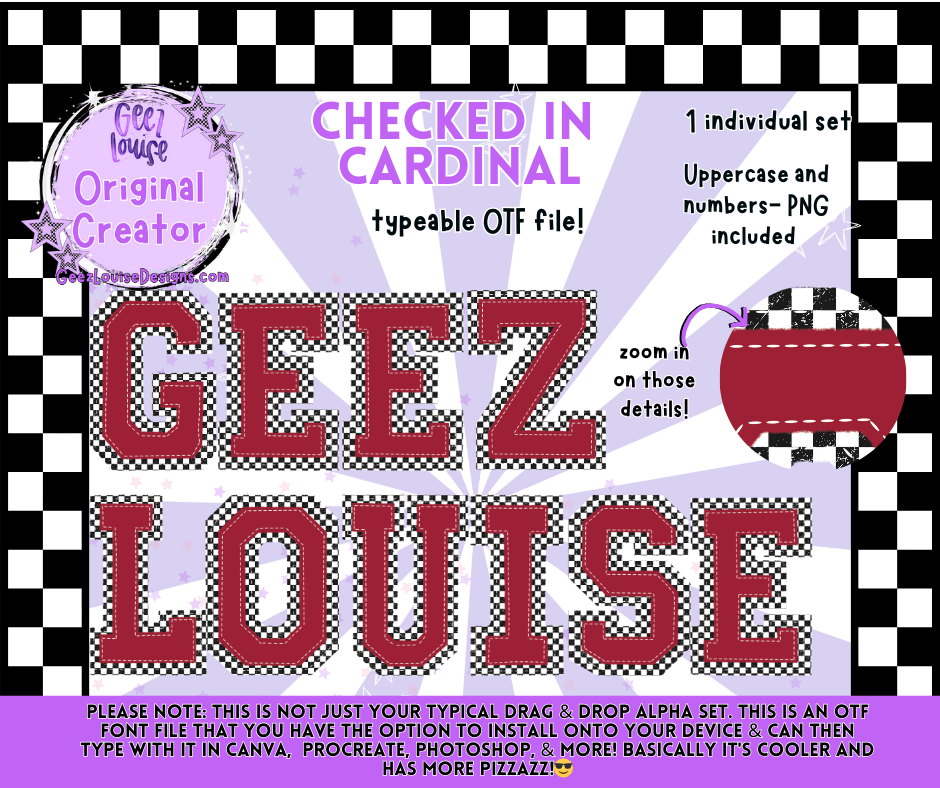
Checked in Cardinal Typeable OTF Alpha Font with PNGs
Typeable. Textured. Totally unhinged (in the best way).
This isn’t your average drag-and-drop alpha set. Geez Louise is a typeable OTF font file stitched with sass and soaked in cardinal red checkers. Designed for creators who want their words to scream louder than their inner monologue, this font brings stitched chaos to Canva, Procreate, Photoshop, and beyond.
• Zoom-worthy stitched texture for that handmade-meets-digital vibe
🎨 Perfect for:
• Emo merch drops
• Grunge zine layouts
• Spooky-cute captions
• Maximalist chaos rituals
• Anything that needs a little stitched rebellion
💡 Why it slaps: Geez Louise fonts aren’t just fonts—they’re attitude in OTF form. Whether you’re building lore, crafting captions, or designing tees that scream heartbreak and glitter, this set gives you the power to type your weird into the world.